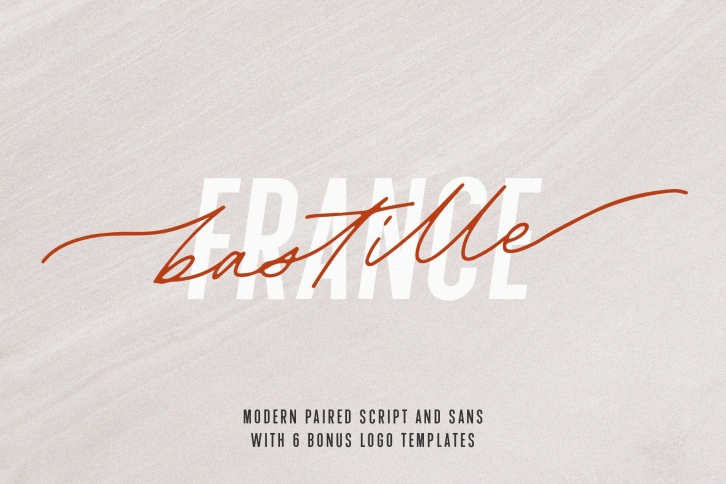
Bastille Modern Font Duo Download
Bastille Modern Duo is a great font that was designed by Jen Wagner Co.. Imagine the amount of combinations you can create using this font! The archive is 2.12 MB and it was released on April 30, 2020. Bastille Modern Duo looks beautiful on wedding invitations, greeting cards, logos, posters, labels, t-shirt designs, logos, business cards and is perfect for use in ink or watercolor works, fashion, magazines, packaging and food menus, children's books and more!